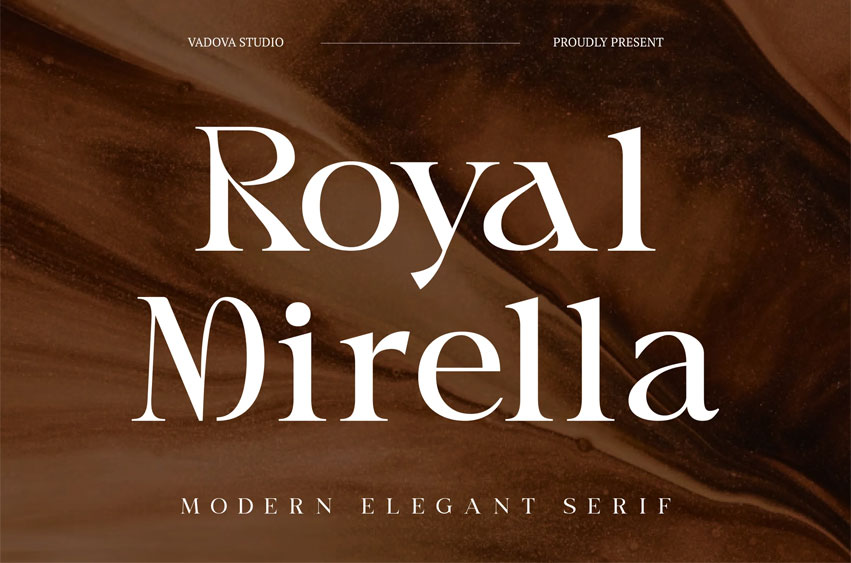
Royal Mirella Font
Royal Mirella Font Elegant Serif Font showcases refined proportions, graceful curves, and a sophisticated serif structure that evokes timeless luxury. The design balances modern sharpness with classic charm, making each letter stand out with poise and precision. Its elegant tone and smooth contrast bring a professional and fashionable character to every layout, ideal for premium design aesthetics.
Relevance and Use Cases is perfect for fashion magazines, luxury branding, editorial layouts, product packaging, boutique identities, perfume design, and elegant advertising campaigns. It also fits beautifully for high-end stationery, art direction visuals, social media branding, and modern photography portfolios, bringing a timeless and polished aesthetic to every project.